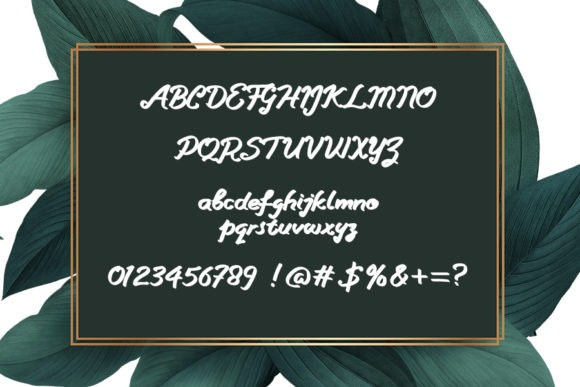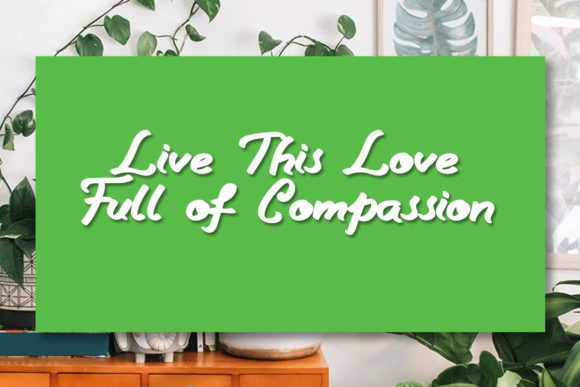
Lovely Valenty Font
Lovely Valenty Script Font is a very beautiful and attractive handwritte font. Use it to make your ideas even more realistic and create spectacular designs!